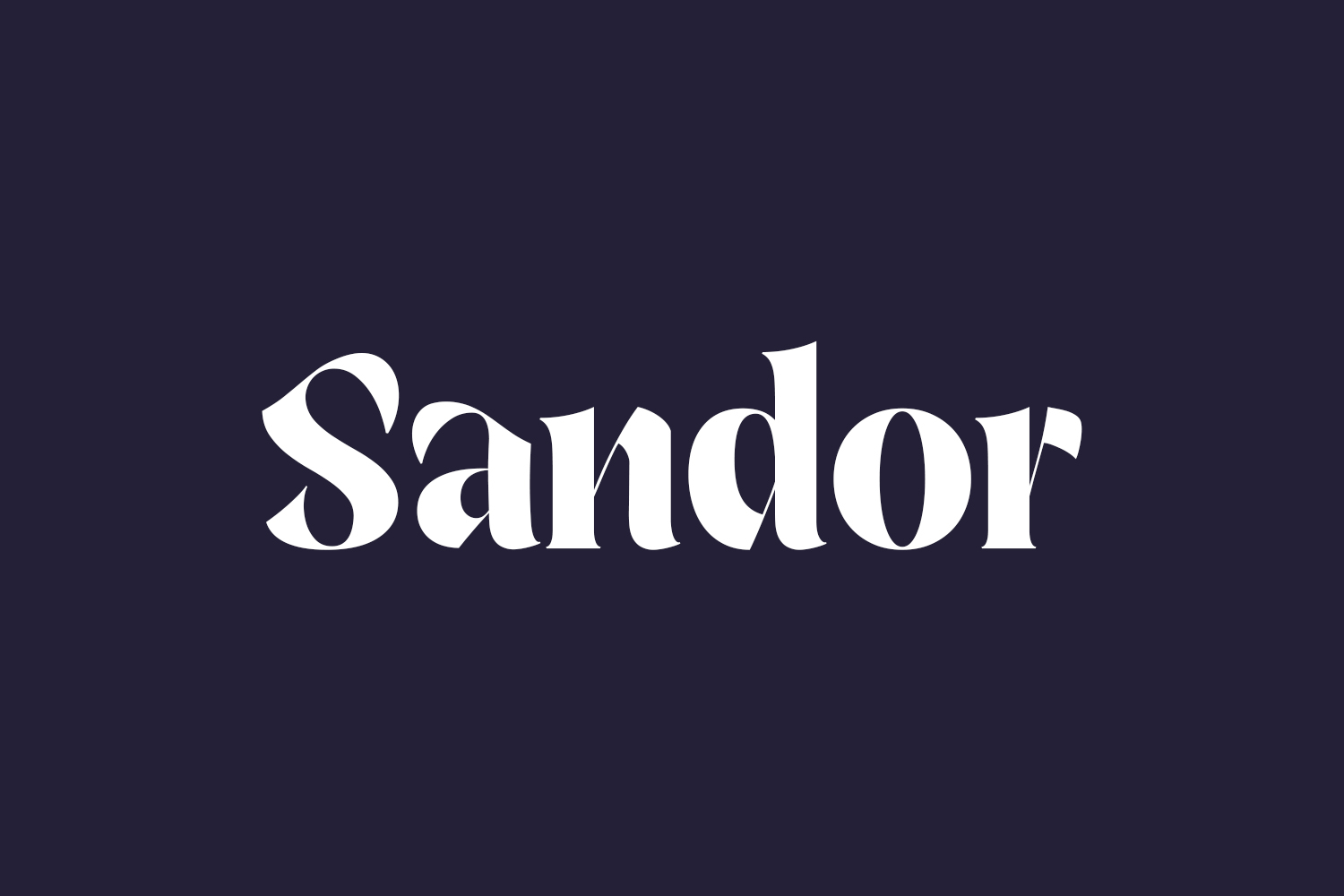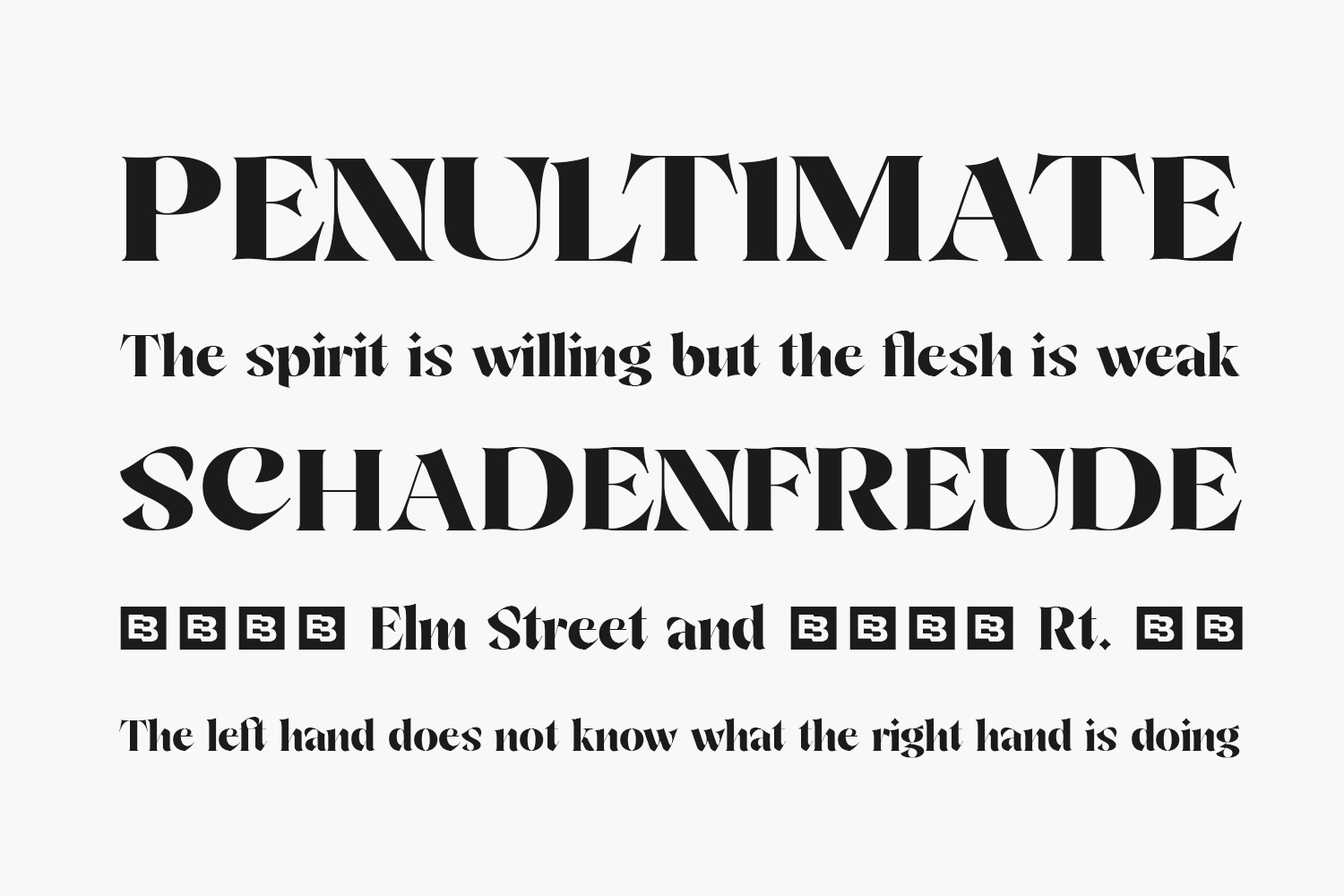
Meet Sandor Free Font, a chic, bold-lettered serif font with an authentic vibe. Optimal for crafting attention-grabbing logos, impactful branding, and compelling quotes. Each letter possesses a distinctive and appealing touch, breathing life into your design for a standout visual impact. Download the font for free if you need it for personal use or purchase the full version for commercial use.